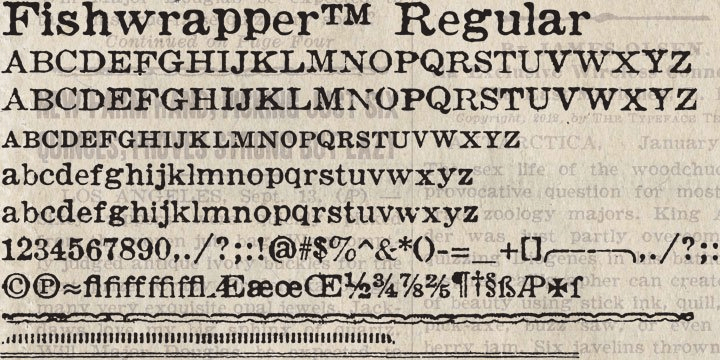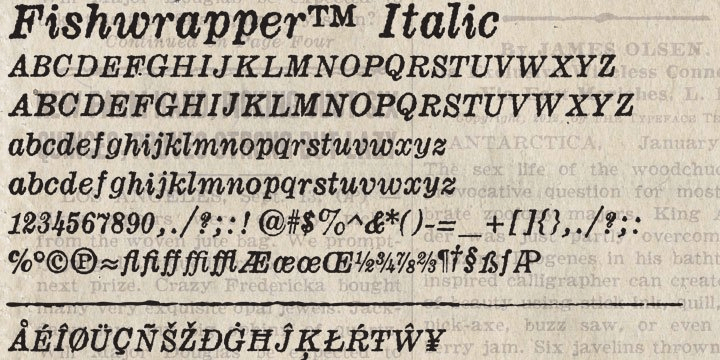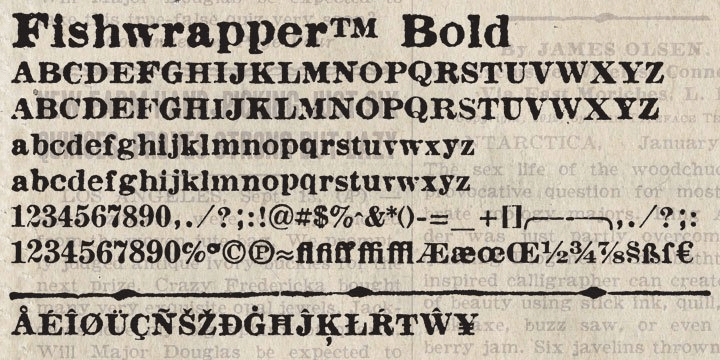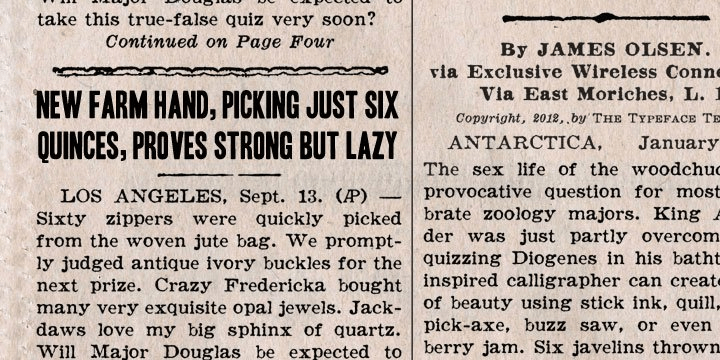
Fishwrapper
Font Family by E-phemera Fonts
Fishwrapper is a three-member font family (Regular, Bold, and Italic) designed to replicate the look of authentic vintage newspaper typography. The fonts are rough and are meant to be used at newspaper sizes. All three fonts have a complete alternate alphabet built in: using the Contextual Alternates feature will automatically substitute alternate versions of most glyphs, so that identical characters do not appear side by side, thus helping to create the look of metal type. Fishwrapper Regular has a complete set of small caps built in. Each font features assorted rule lines and other decorative material, many accessible through the discretionary ligature OpenType feature (three em dashes in a row, for example, will become a rule line), as well as fractions and a full international character set. Used in conjunction with some of E-phemera's vintage headline fonts, the Fishwrapper family is intended as a complete vintage newspaper and job-printing type solution.